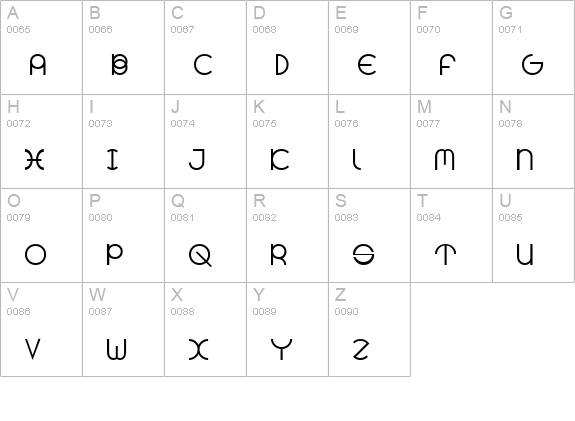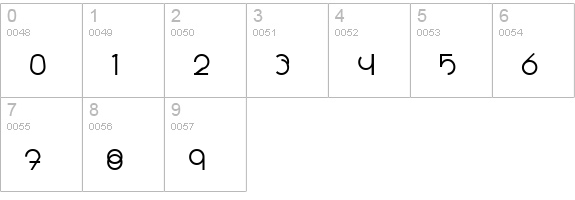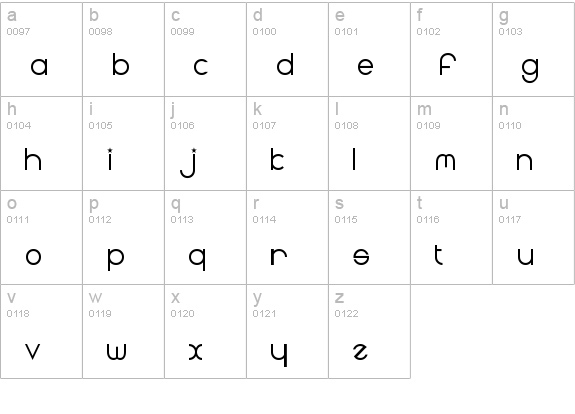
Radius Font Details
Radius is a sleek and modern font that exudes elegance and sophistication. Its clean lines and rounded edges give it a unique and contemporary look that is perfect for a wide range of design projects. Whether you are creating a logo, branding materials, or even a website, Radius is sure to make a lasting impression. One of the best things about Radius is that it is available for free! You can easily download this font at FontsMarket.com, a trusted source for high-quality and freely available fonts. This means that you can use Radius in your personal or commercial projects without any restrictions or limitations. With its extensive character set, Radius offers versatility and flexibility. It supports multiple languages and includes various punctuation marks and symbols, making it suitable for global use. Its legibility and readability make it a great choice for both headlines and body text, ensuring that your message is clear and impactful. Whether you are a professional designer or just starting out, Radius is a font that will elevate your work to the next level. Its modern aesthetic and free availability make it a must-have for anyone looking to create eye-catching and stylish designs. So why wait? Download Radius today and let your creativity soar!